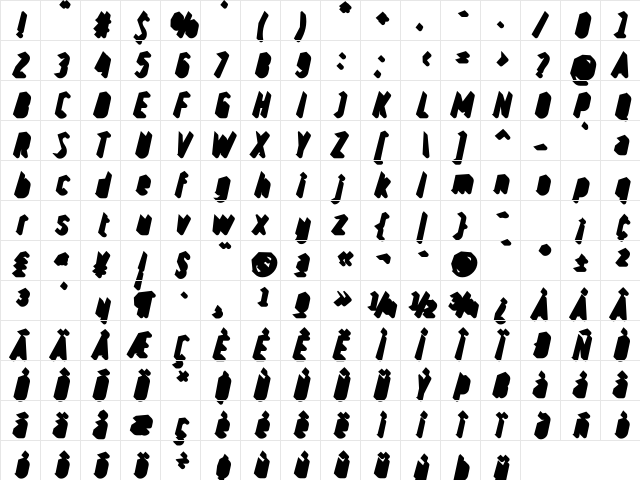
Ruler Volume Shadow Regular
| Foundry | Levi Szekeres |
| Designer | Levi Szekeres |
Design Context for Ruler Volume Shadow Typeface
Ruler Volume Shadow is built around its visual character rather than neutral utility — its distinctive forms are designed to make an impression at display sizes.
Font Pairing: Pair with a clean neutral sans-serif for body copy to let Ruler Volume Shadow's character lead without overwhelming the composition.
Pro Tip: Treat Ruler Volume Shadow as the centrepiece of your typographic hierarchy. One strong heading set in a decorative face can carry an entire layout.